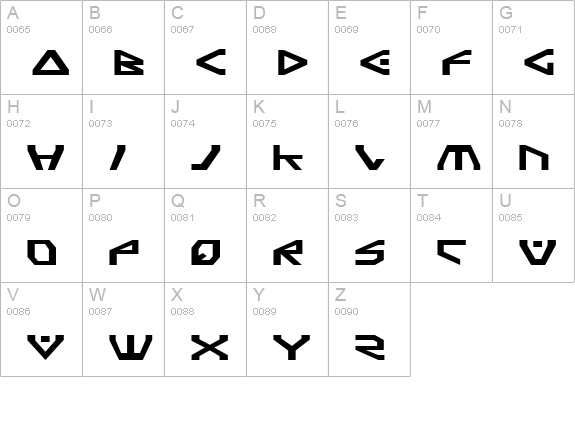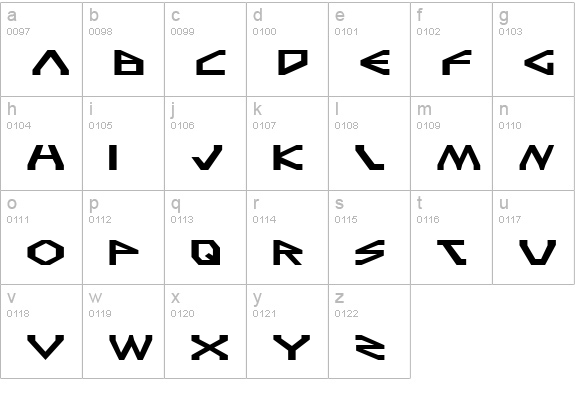
Terra Firma Expanded is a distinctive, extended-width variant in the Terra typeface family \xE2\x80\x94 well suited to design and typography projects.
Introducing Terra Firma Expanded, a captivating font that exudes elegance and sophistication. This versatile typeface combines a modern twist with a timeless appeal, making it the perfect choice for a wide range of creative projects. Terra Firma Expanded showcases an expanded width, allowing each letter to command attention and leave a lasting impression. Its bold and distinct design effortlessly captures the essence of strength and stability, making it ideal for branding, headlines, and impactful statements. The sleek and refined lines of Terra Firma Expanded weave together effortlessly, creating a harmonious balance between legibility and artistic flair. Its meticulously crafted letterforms are expertly spaced, ensuring maximum readability without compromising on style. What sets Terra Firma Expanded apart is not only its impeccable design but also its accessibility. This font is freely available to download at FontsMarket.com, allowing designers and enthusiasts alike to effortlessly incorporate this stunning typeface into their creative endeavors. Whether you're designing a logo for a high-end fashion brand, creating eye-catching advertisements, or crafting elegant wedding invitations, Terra Firma Expanded is the perfect companion to elevate your projects to new heights. Its versatility allows it to seamlessly adapt to various design styles, making it a must-have in any typographic arsenal. With its timeless appeal and captivating presence, Terra Firma Expanded is destined to become an indispensable part of your creative toolkit. Unleash your creativity and explore the possibilities that this remarkable font has to offer – download it for free at FontsMarket.com today!